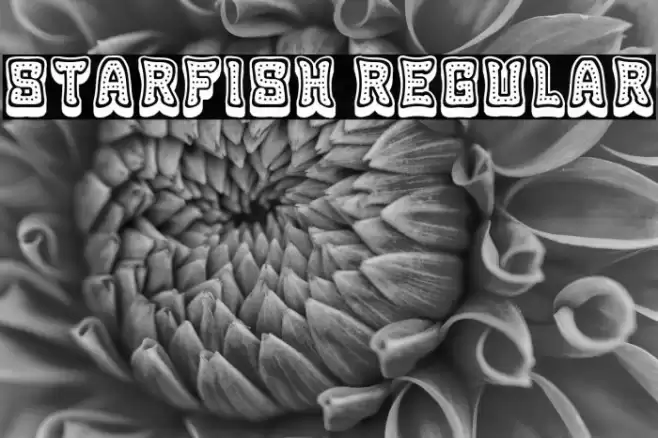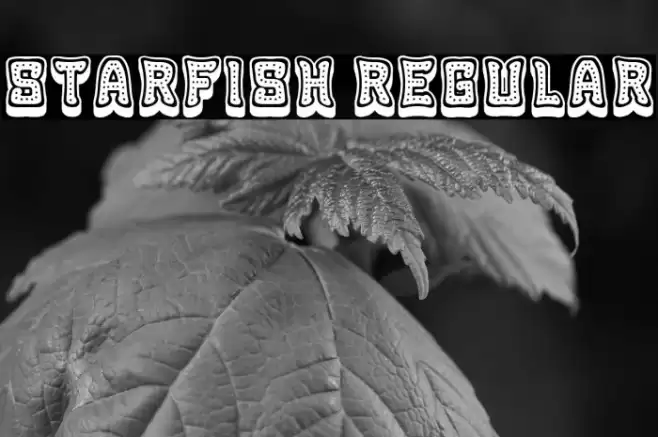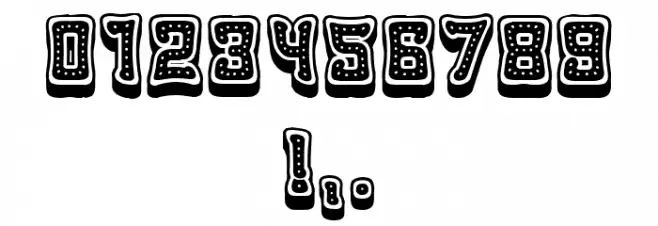
Starfish Regular Font
Starfish Regular Description
This playful and whimsical font features bold, rounded characters with a unique dotted pattern inside each letter. The thick outlines and bubbly shapes give it a fun, cartoonish appearance, making it stand out in any design. The font maintains a consistent style across uppercase, lowercase, and numeral characters, with special symbols also reflecting the same decorative theme. Its distinctive look is perfect for projects that require a touch of creativity and flair.
A playful, bold font with dotted patterns and thick outlines from Uncategorized fonts.
- Proposed Projects: Ideal for children's books, playful branding, party invitations, and creative posters.